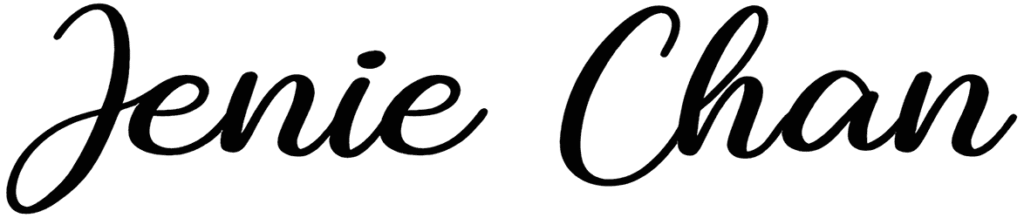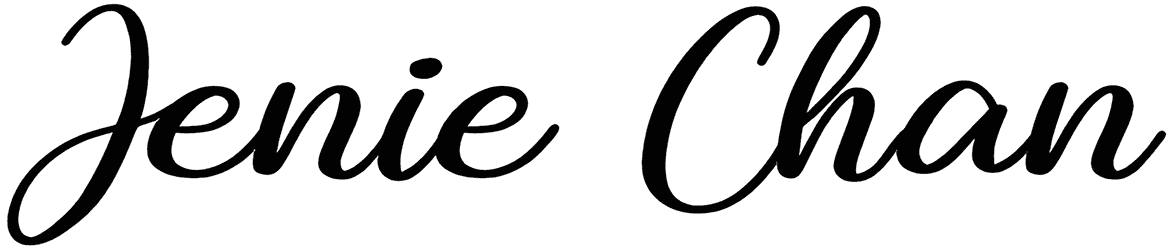
Jenie Chan Font
What do you think about making classic and chic contexts that match every taste? This handwritten font with realistic hand lettering is one of them that has a soft and eye-catching vibe. With a full backup of characters, Jenie Chan can be harmonized with any short or long projects, such as books, invitations, posters, logos, and the like.